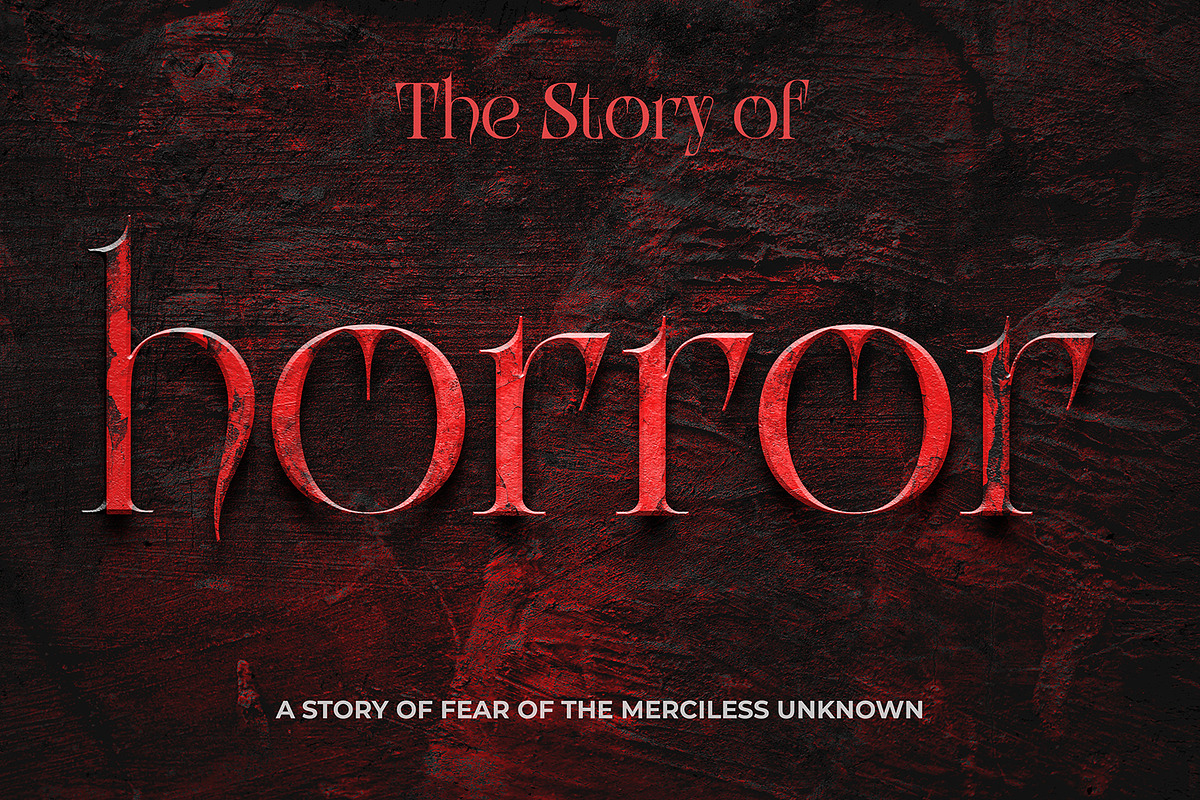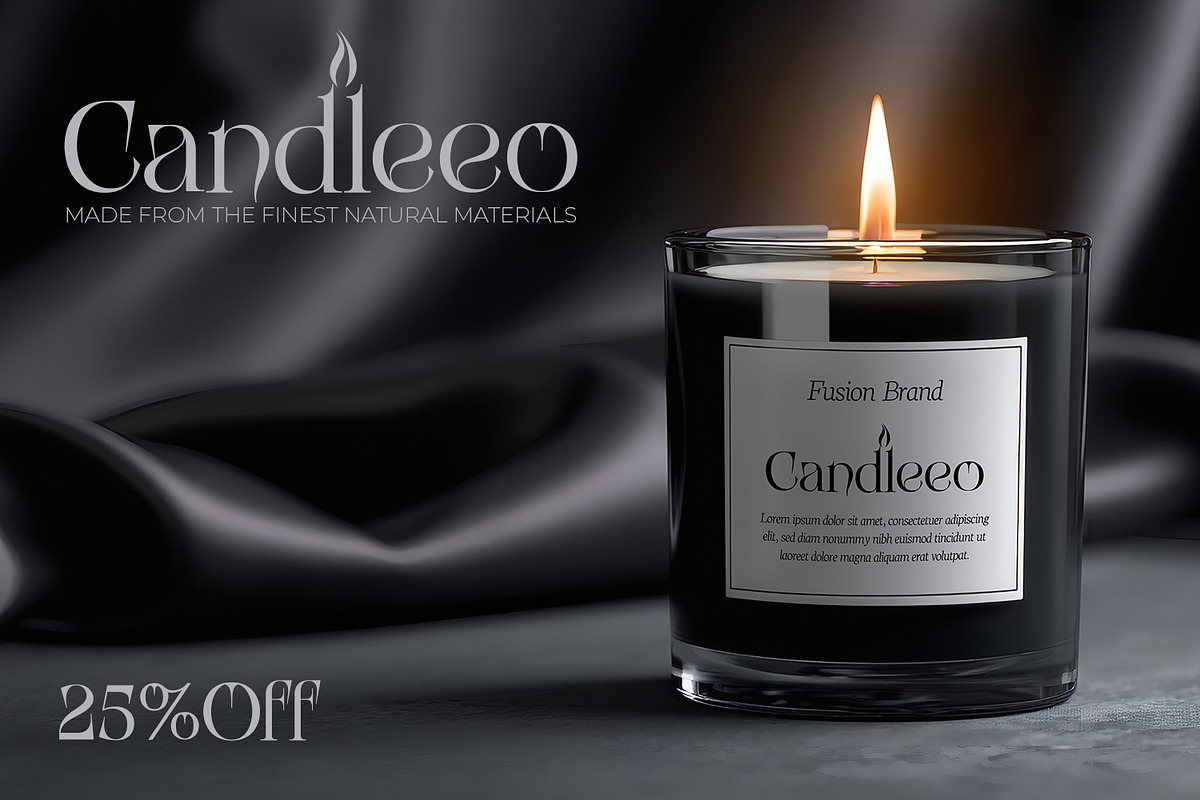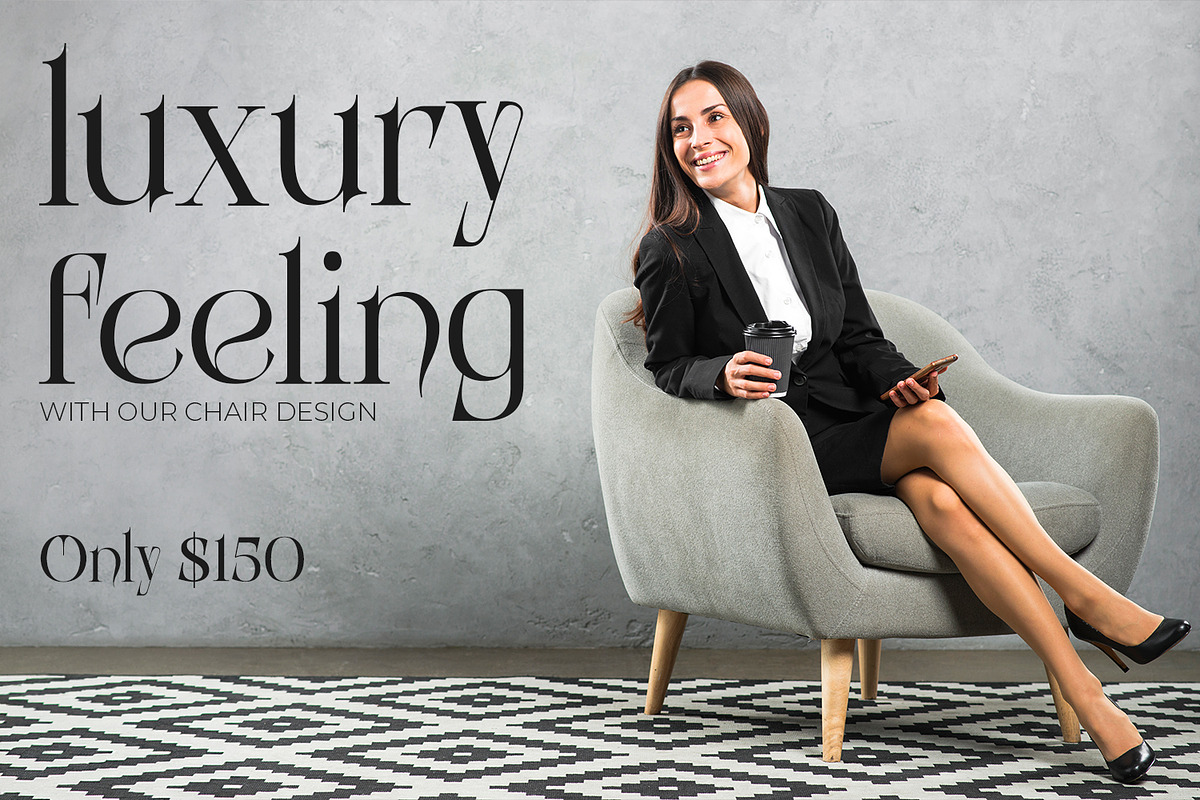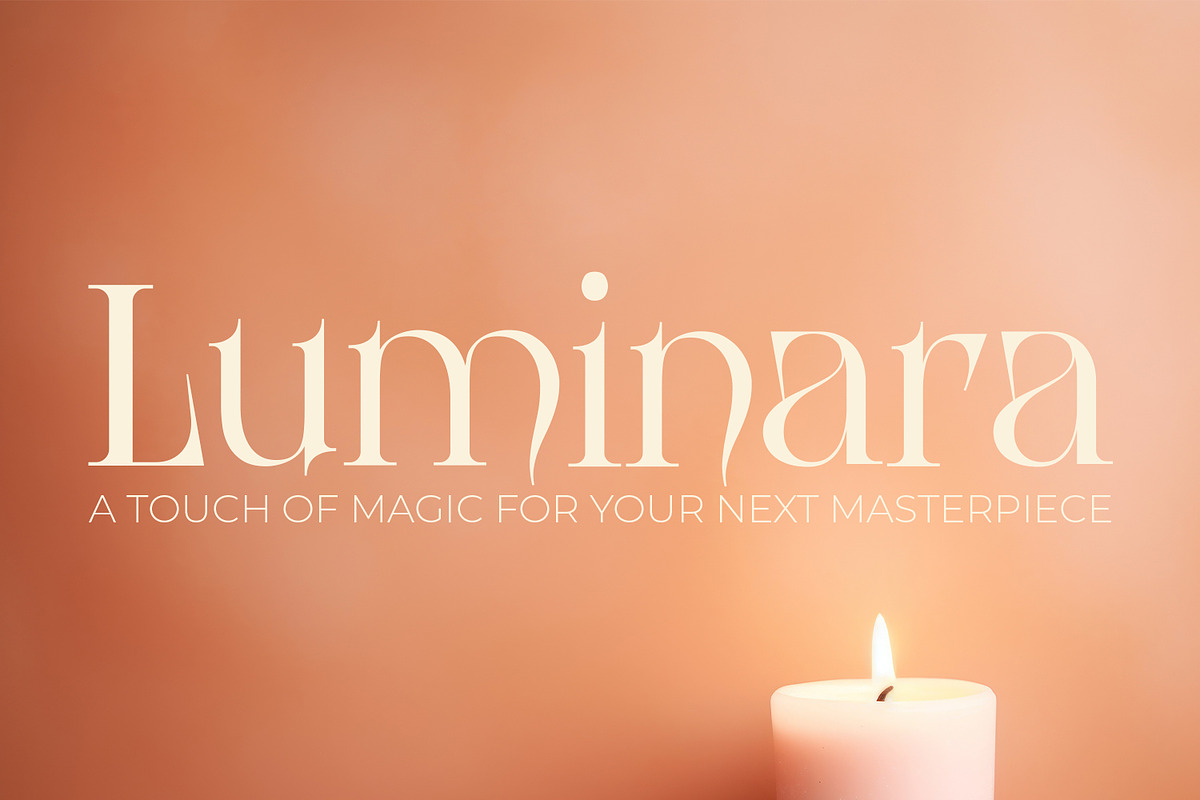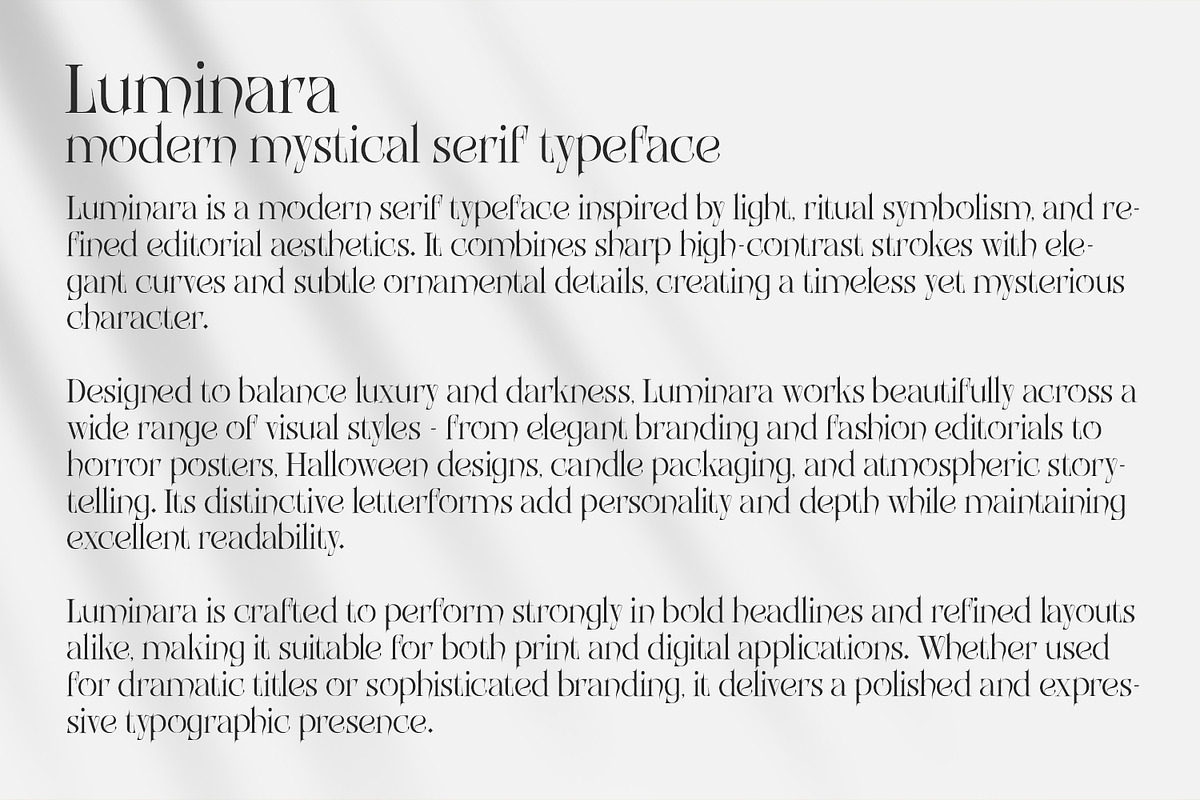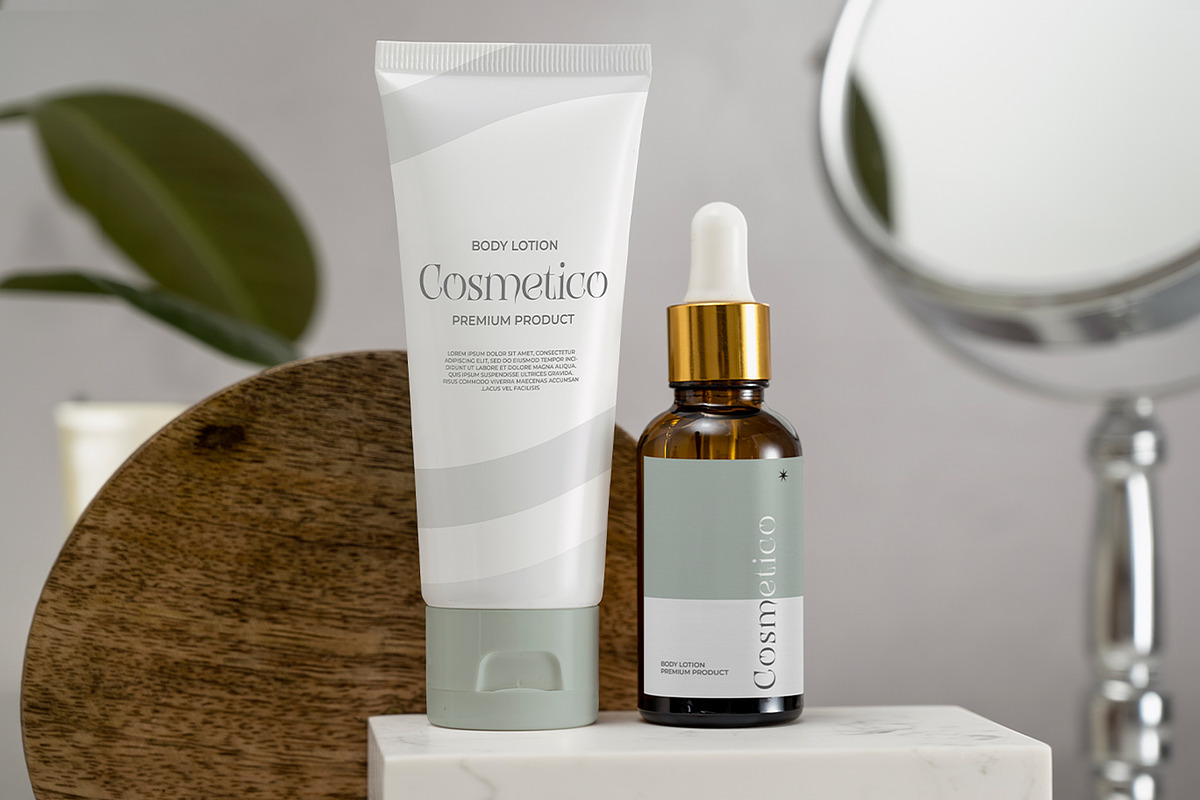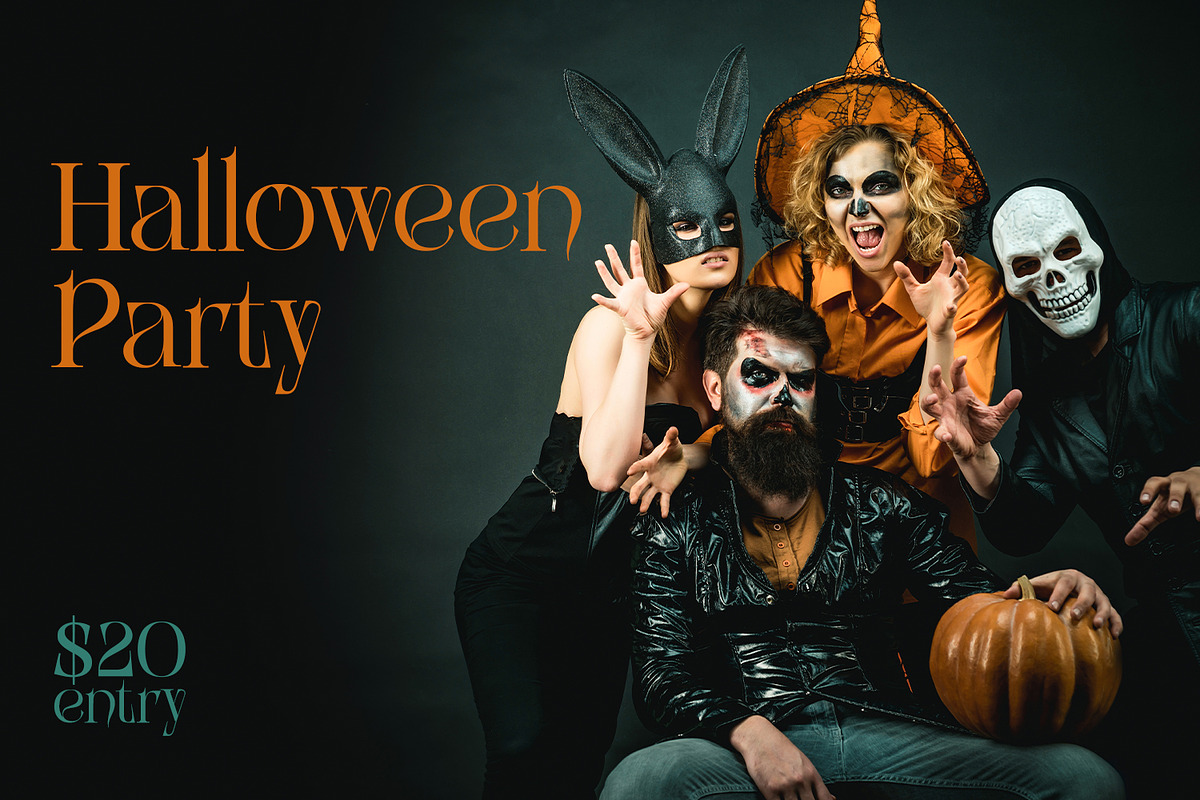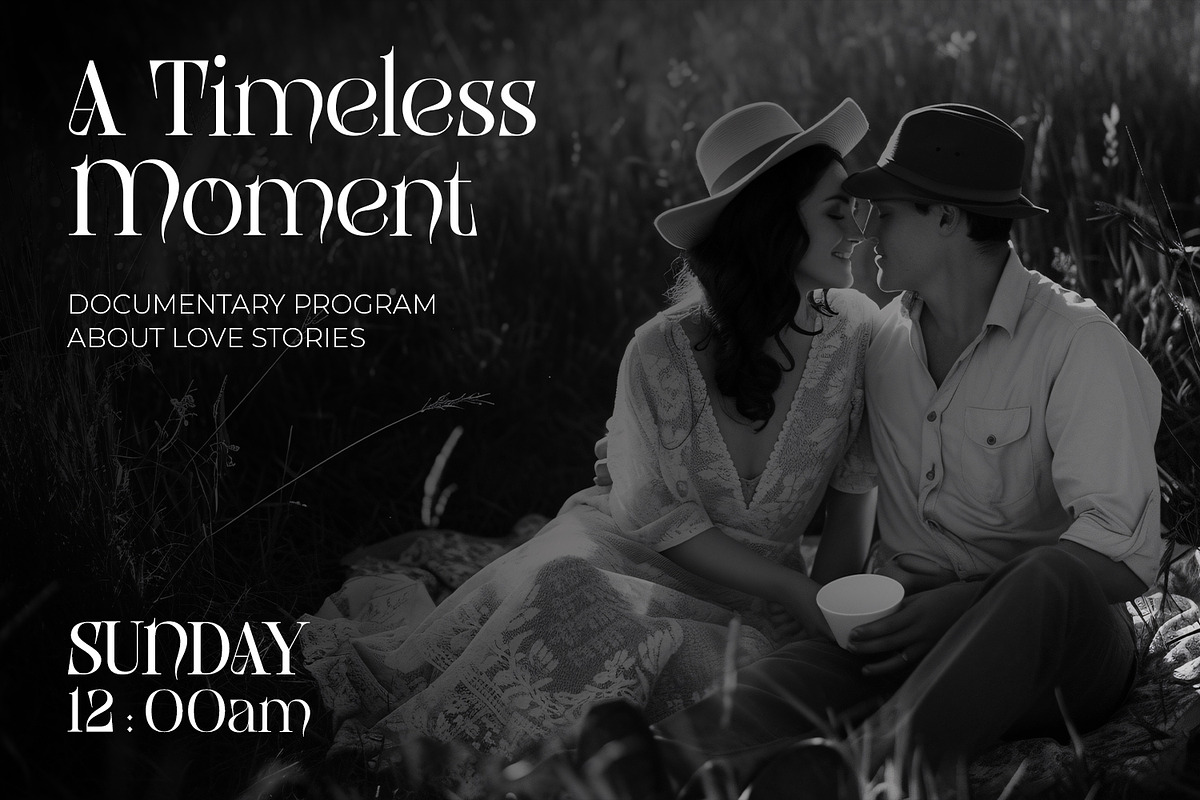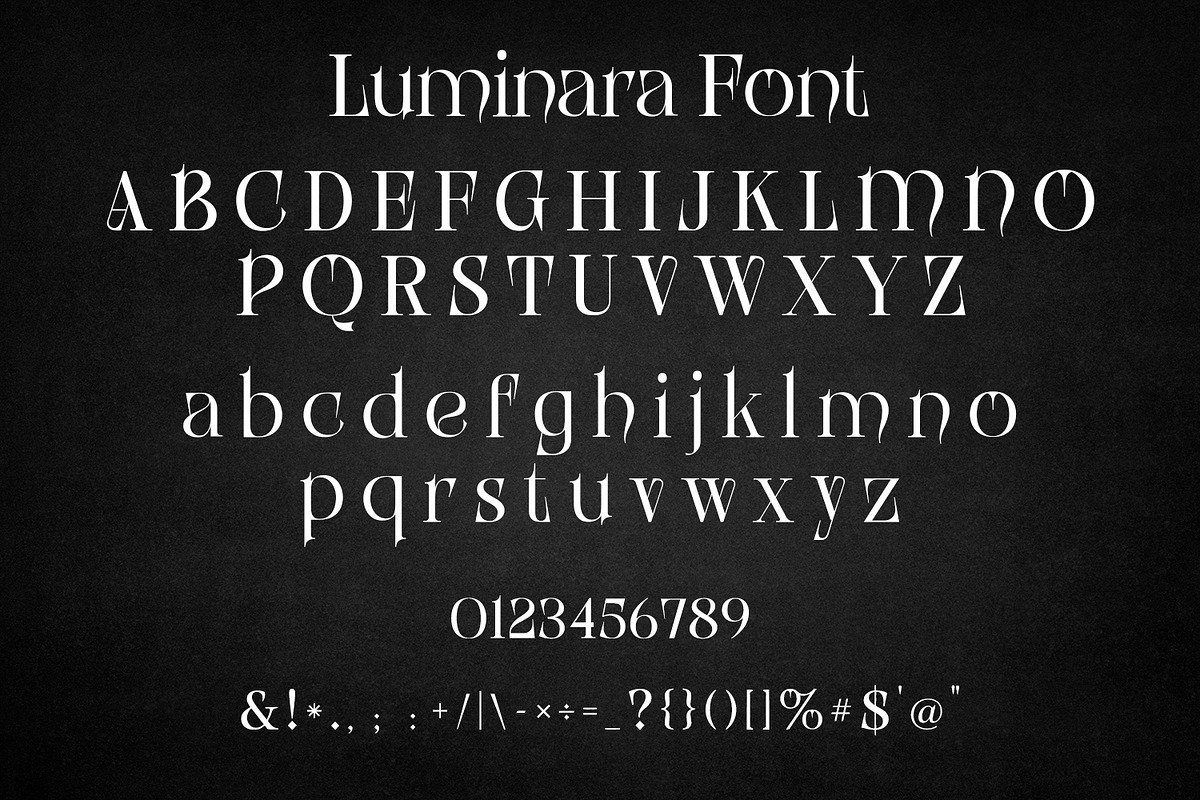
Luminara – Modern Mystical Serif
Luminara is a modern mystical serif font designed to blend elegance, darkness, and refined editorial style. Featuring high-contrast strokes, graceful curves, and subtle ornamental details, this typeface delivers a sophisticated yet mysterious visual presence.
Perfect for luxury branding, horror and Halloween designs, candle and perfume packaging, book covers, posters, and cinematic titles, Luminara offers excellent readability while maintaining a dramatic and premium character. Its versatile design makes it suitable for both bold headlines and polished layouts across print and digital media.
Luminara is ideal for designers seeking a serif font that feels timeless, atmospheric, and expressive, with a balance of beauty, mystery, and visual impact.